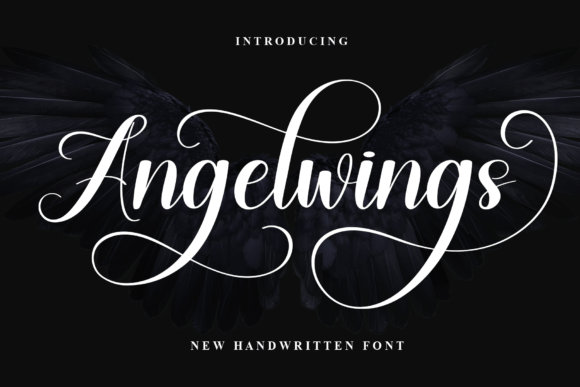
Introducing Angelwings Font, a captivating and enchanting addition to your font collection! Created by the talented Roronoa zoro.S.P.D, this font is not just any ordinary script font - it's a work of art designed specifically for tattoos. With its sweet and friendly handwritten style, Angelwings Font will breathe life into your tattoo designs and make them truly extraordinary.
When it comes to choosing the perfect font for tattoos, you need something that stands out, something that tells a story, and Angelwings Font does just that. Its natural and unique style adds a touch of authenticity, making your tattoo designs come alive on the skin. Imagine the mesmerizing curves and strokes gracefully adorning your body, leaving a lasting impression on everyone who sees it.
But Angelwings Font doesn't stop at tattoos. Its versatility extends beyond the realm of body art. Whether you're designing logos, packaging, wedding invitations, or even social media graphics, this font seamlessly adapts to any project you have in mind. It's like a chameleon, effortlessly blending into various designs and adding a touch of elegance and sophistication.
With Angelwings Font, the possibilities are endless. Let your creativity soar as you explore the vast potential this font holds. Its captivating charm will capture hearts and leave a lasting impact on your audience. Whether you're a professional designer or someone who simply enjoys creating beautiful things, this font will become your ultimate companion.
But what sets Angelwings Font apart from other script fonts? It's the passion and dedication that Roronoa zoro.S.P.D poured into every detail. Each stroke, each curve was carefully crafted to evoke emotions and tell a story. The result? A font that not only looks visually stunning but also touches the soul.